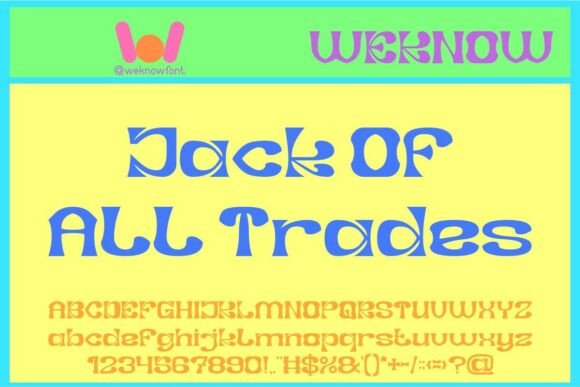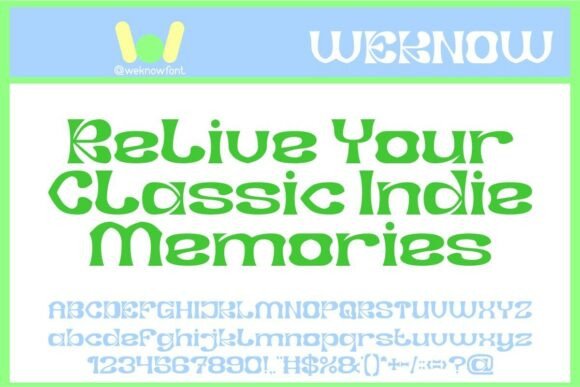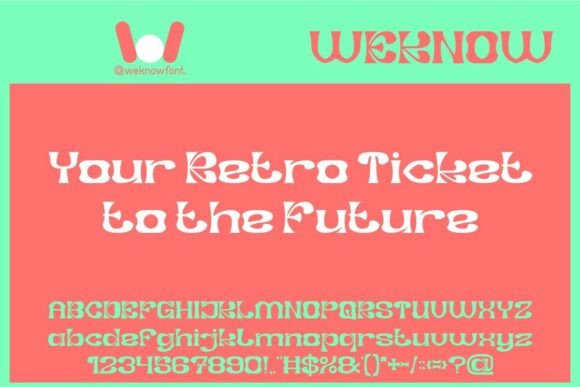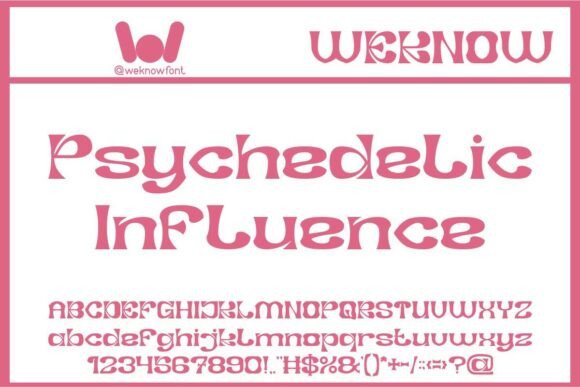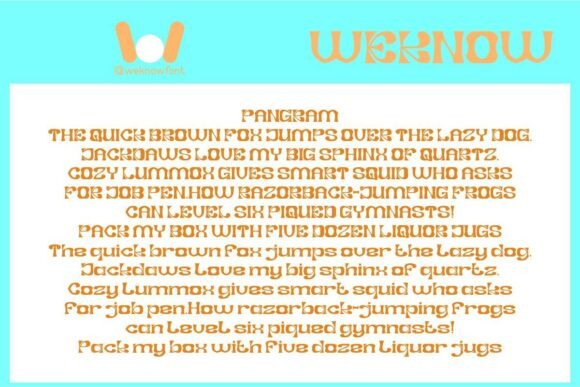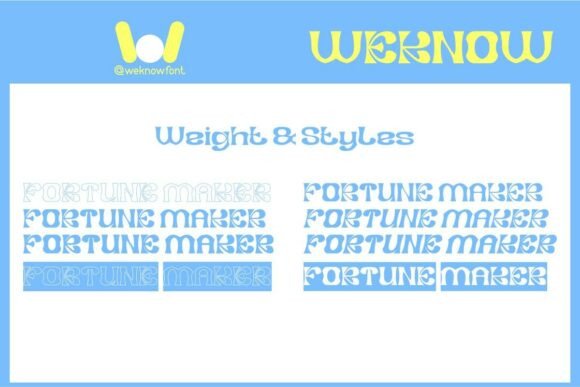
Unleash Your Creativity with Fortune Maker Font: A Psychedelic Retro Display Typography
Step back in time to the vibrant era of the ‘60s and ‘70s, an age of revolution, free expression, and artistic exploration. The Fortune Maker font is here to transport you to this groovy period, infusing your creative projects with a nostalgic charm that’s hard to resist. This display typography is not just a font; it’s an experience, blending psychedelic retro notes with ornamental and experimental touches. The result is an eclectic fusion of classic and vintage styles that will make your designs stand out in a crowd.
The Distinctive Design of Fortune Maker
Fortune Maker’s distinctive, groovy design is its most striking feature. The font combines the playful, experimental spirit of the ‘60s and ‘70s with a modern sensibility, making it an exceptional choice for designers looking to add a touch of nostalgia to their work. Whether you’re crafting eye-catching headlines, creating a memorable corporate or brand identity, or adding a touch of pizzazz to apparel designs, Fortune Maker is the perfect partner.
The versatility of Fortune Maker is one of its most compelling attributes. This font is not limited to a specific medium or industry. Here are just a few examples of how you can use Fortune Maker to elevate your creative projects:
- Music, Movies, and Game Projects: Add a quirky character to your album covers, movie posters, or game titles. Fortune Maker’s unique style will set your project apart and capture the imagination of your audience.
- Books, Magazines, and Comics: Bring a touch of nostalgia to your publications with Fortune Maker. Its distinctive design is sure to captivate readers of all ages.
- Social Media and Websites: Make your mark on social platforms like YouTube and Instagram with Fortune Maker. Use it to create engaging thumbnails, titles, or captions that stand out in a crowded feed. For websites, Fortune Maker can add a uniquely engaging edge, making your content more memorable.
Why Choose Fortune Maker?
With so many fonts available, why choose Fortune Maker? Here are a few reasons why designers and crafters are drawn to this unique typography:
- Nostalgic Appeal: Fortune Maker taps into the nostalgia of the ‘60s and ‘70s, offering a retro vibe that’s currently trending in design.
- Versatility: From digital media to print, Fortune Maker can be used across a wide range of creative projects.
- Distinctive Style: In a sea of generic fonts, Fortune Maker stands out with its distinctive, groovy design.
- Ease of Use: Despite its complex appearance, Fortune Maker is easy to use, making it accessible to designers of all skill levels.
Tips for Using Fortune Maker Effectively
To get the most out of Fortune Maker, here are a few tips:
- Experiment with Sizes and Colors: Fortune Maker’s impact can be amplified by experimenting with different sizes and colors. Don’t be afraid to go big or go bold.
- Combine with Other Fonts: While Fortune Maker is stunning on its own, it can also be paired with other fonts to create interesting contrasts. Try combining it with a simple sans-serif for a striking effect.
- Consider Your Audience: While Fortune Maker’s retro vibe is captivating, it’s essential to consider your audience. Ensure that the font aligns with your project’s tone and message.
Fortune Maker is more than just a font; it’s a creative tool that can bring your projects to life. Its unique blend of psychedelic retro notes, ornamental touches, and experimental spirit makes it a standout choice for designers and crafters looking to add a touch of nostalgia to their work. Whether you’re working on a music album, a fashion brand, or a digital platform, Fortune Maker is your partner in designing captivating narratives. So, why wait? Immerse yourself in the nostalgia of the ‘60s and ‘70s with Fortune Maker and watch your creativity come to life.